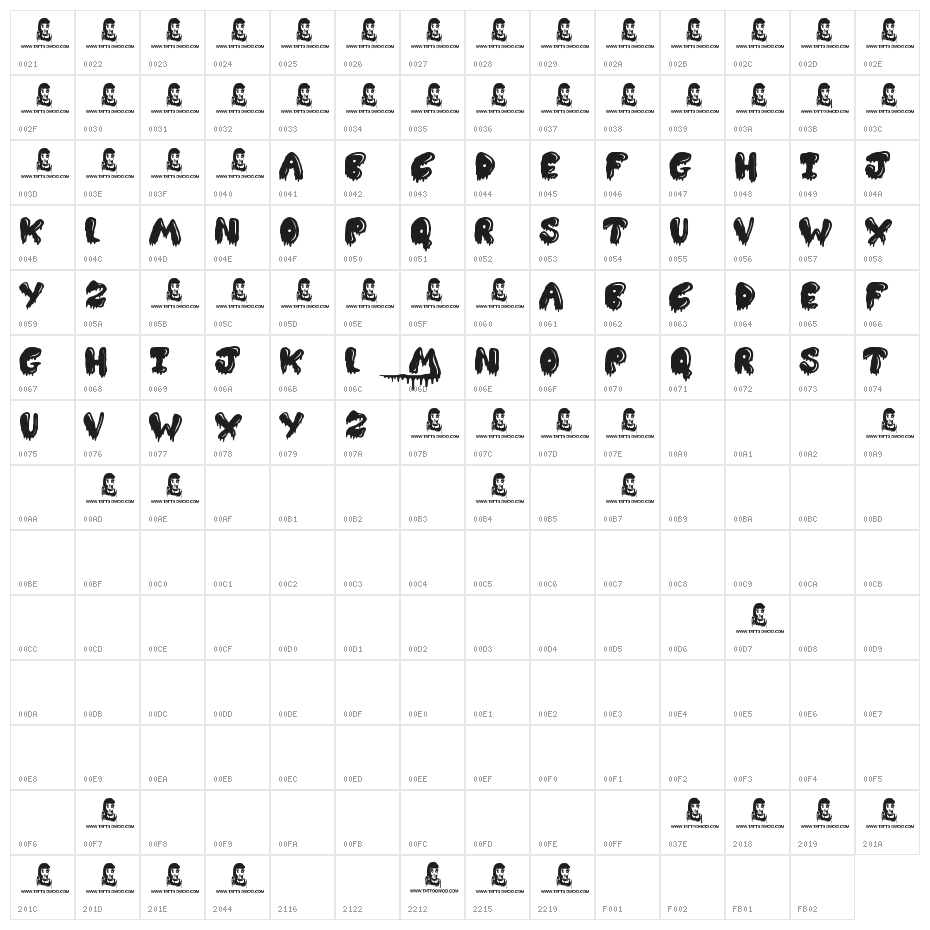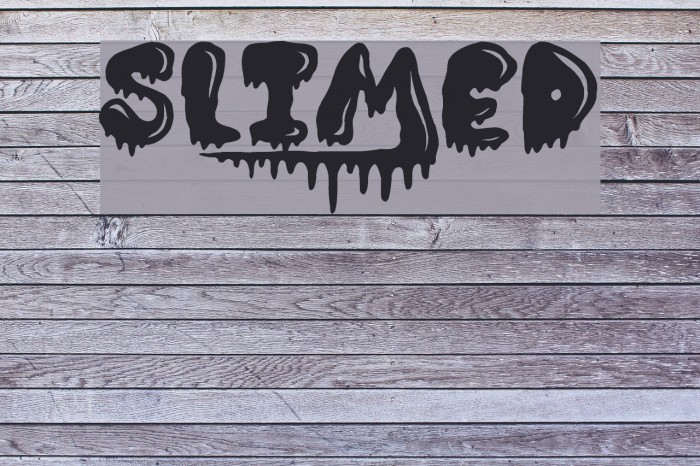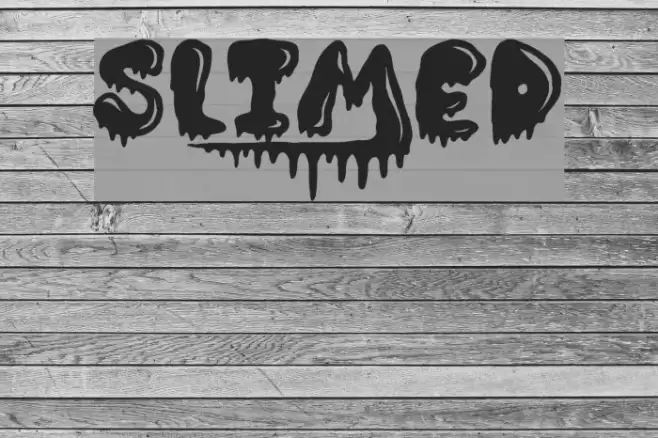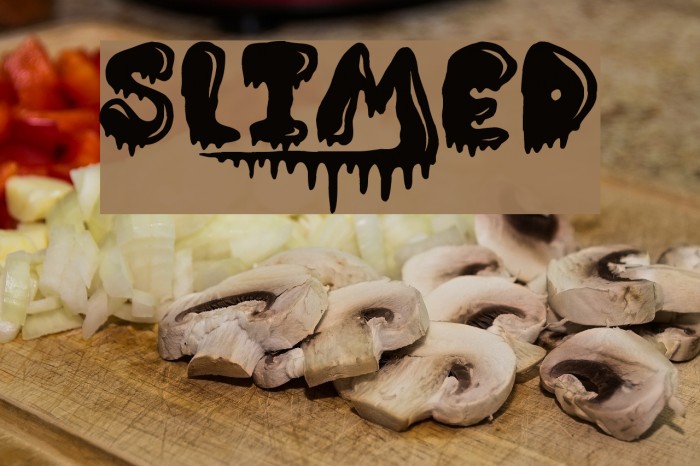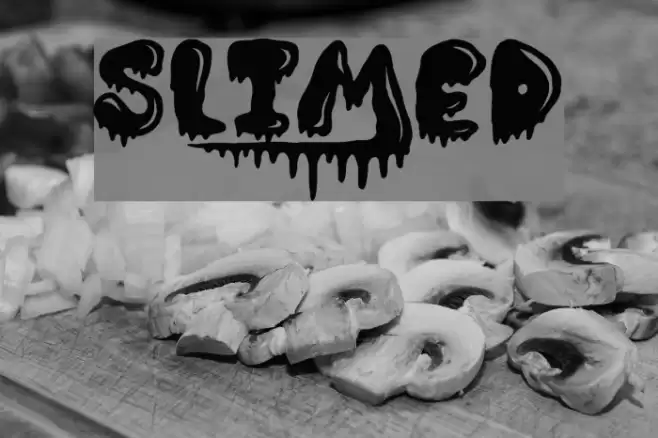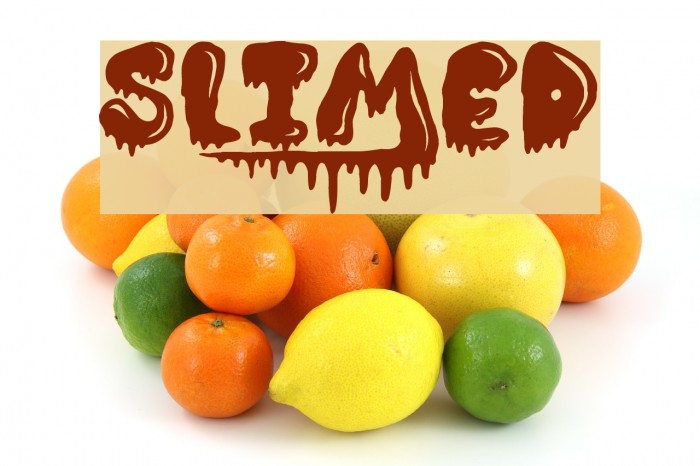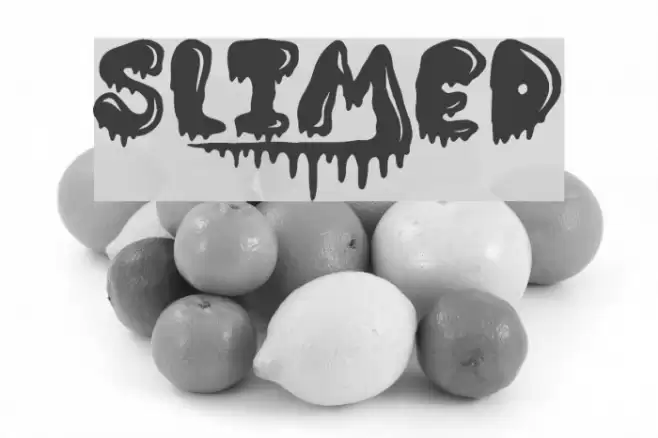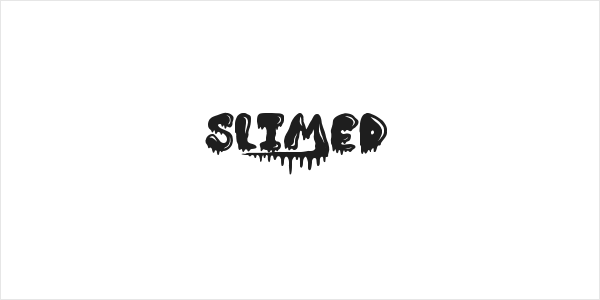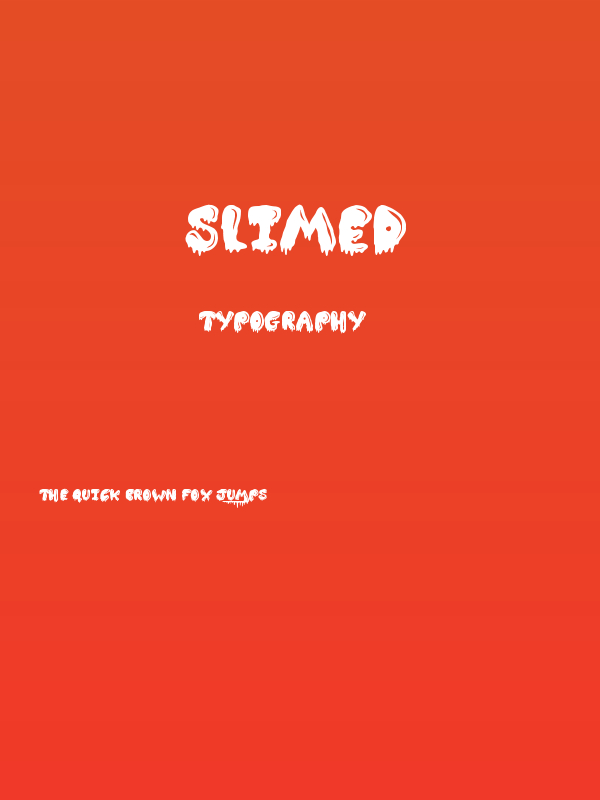
Slimed Font
Slimed Description
This font features a playful and eerie design, reminiscent of dripping slime or melting wax. The characters have a bold and chunky appearance, with irregular edges that give a sense of movement and fluidity. Each letter appears as if it's oozing, creating a dynamic and eye-catching effect. The font's unique style makes it ideal for themes related to horror, Halloween, or anything that requires a spooky or unconventional look. Its boldness ensures visibility and impact, making it suitable for headlines or titles that need to stand out.
Proposed ProjectsIdeal for Halloween-themed posters, horror movie titles, spooky event invitations, or any project needing a creepy and playful touch.